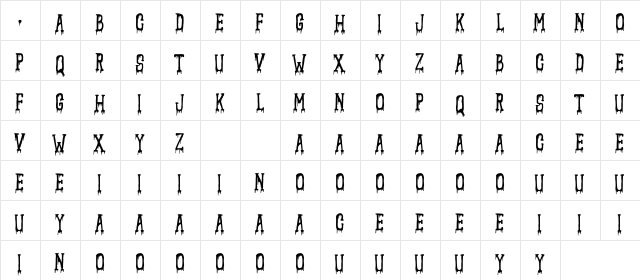
SCARYNIZO DECORATIVE
Design Context for SCARYNIZO Typeface
SCARYNIZO carries an unsettling edge — its distorted letterforms are built to unsettle, perfectly suited to horror, Halloween, and dark creative work.
Perfect for anything that needs to unsettle — game titles, horror branding, and macabre invitations.
Font Pairing: Pair with a clean neutral sans-serif for body copy to let SCARYNIZO's character lead without overwhelming the composition.
Pro Tip: Use SCARYNIZO at larger display sizes for maximum impact. Consider generous tracking to let the disturbing character of each letterform breathe.